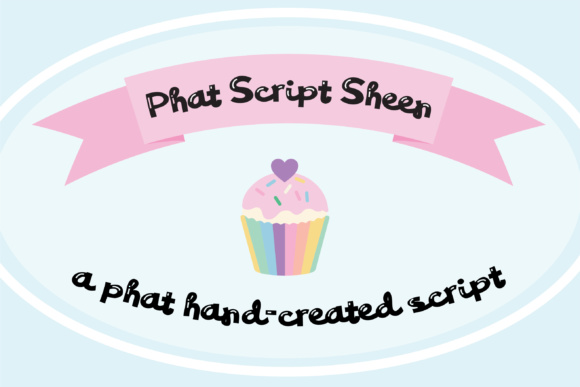
Introducing PN Phat Script Sheen Duo Font, the invigorating script font that exudes individuality and charm. Crafted by the brilliant minds at Illustration Ink, this enchanting font family gracefully dances across your designs, leaving a trail of elegance and creativity.
With its playful and lively strokes, PN Phat Script Sheen Duo Font radiates a joyful ambiance, injecting a touch of whimsy into your creations. The thick, expressive lettering demands attention, making your words leap off the page with a vibrant, energetic flair. This remarkable font is perfectly suited for crafting eye-catching logos, personalized invitations, vibrant posters, and playful social media graphics that are sure to leave a lasting impression.
Unleash your imagination and explore the limitless possibilities of PN Phat Script Sheen Duo Font. Dive into the world of handmade cards and gift tags, bringing a personal touch to every creation. Embark on a journey of album covers and magazine designs, captivating your audience with its enchanting aesthetics. This versatile font is the perfect companion for branding projects, adding a touch of sophistication and uniqueness to your business identity.
Step into the realm of digital creations, where PN Phat Script Sheen Duo Font shines as a beacon of creativity. Create captivating website designs that radiate warmth and charm, inviting visitors to embark on an unforgettable journey through your online space. Let your social media posts sparkle with personality, expressing your authentic voice with a font that mirrors your vibrant spirit.
Indulge in the versatility of PN Phat Script Sheen Duo Font, seamlessly blending with other design elements to elevate your projects to new heights. Discover the harmony between the shiny marks of Phat Script Sheen and the regular Phat Script, crafting captivating duo-color fonts that add depth and dimension to your designs.
Seize the opportunity to infuse your creative endeavors with joy and inspiration. Embrace PN Phat Script Sheen Duo Font as your artistic ally, transforming ordinary designs into extraordinary masterpieces. Let your imagination soar, let your creativity flourish, and let the world witness the magic that unfolds when you wield this remarkable font.